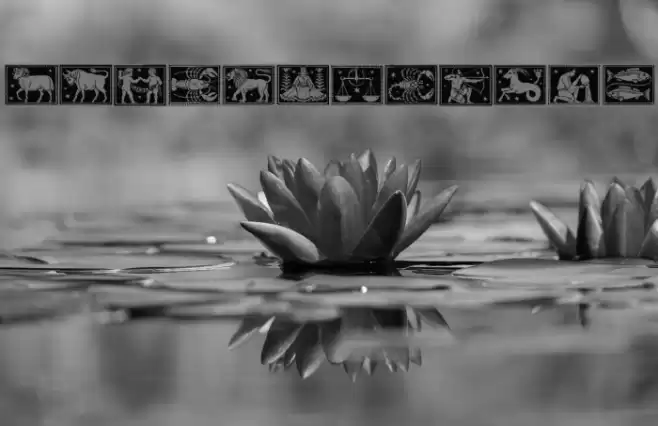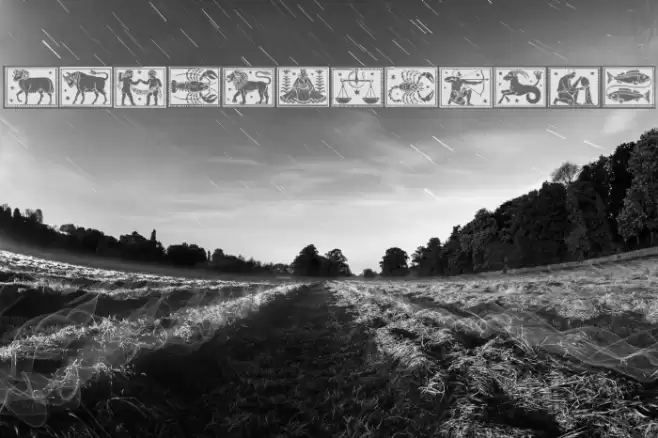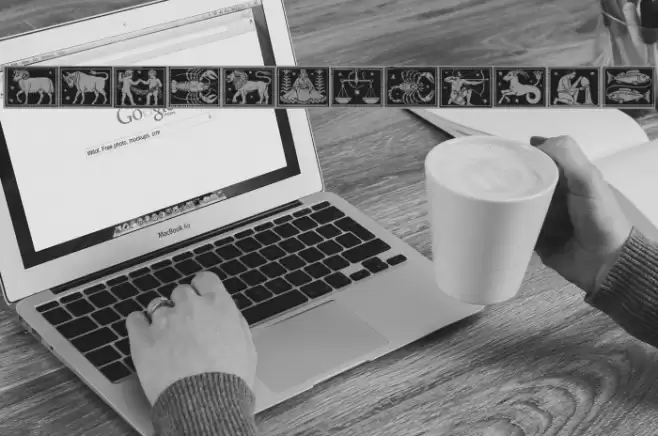
Zodiac01 Font
Zodiac01 Description
This set of symbols features intricate zodiac signs, each enclosed within a square frame. The designs are highly detailed, capturing the essence of each zodiac symbol with artistic flair. The symbols are presented in a monochrome style, emphasizing the contrast between the intricate line work and the background. Each symbol is distinct, showcasing traditional representations of zodiac signs such as Aries, Taurus, Gemini, and others. The overall aesthetic is reminiscent of classic astrological illustrations, making it suitable for projects that require a mystical or celestial theme.
Intricate zodiac symbols in a classic, monochrome style from Dingbats fonts.
- Proposed Projects: Ideal for astrology-themed designs, tarot cards, mystical branding, or decorative elements in publications.
- Overall Style: Classic
- Use Case: Logos, Decorative elements, Themed publications